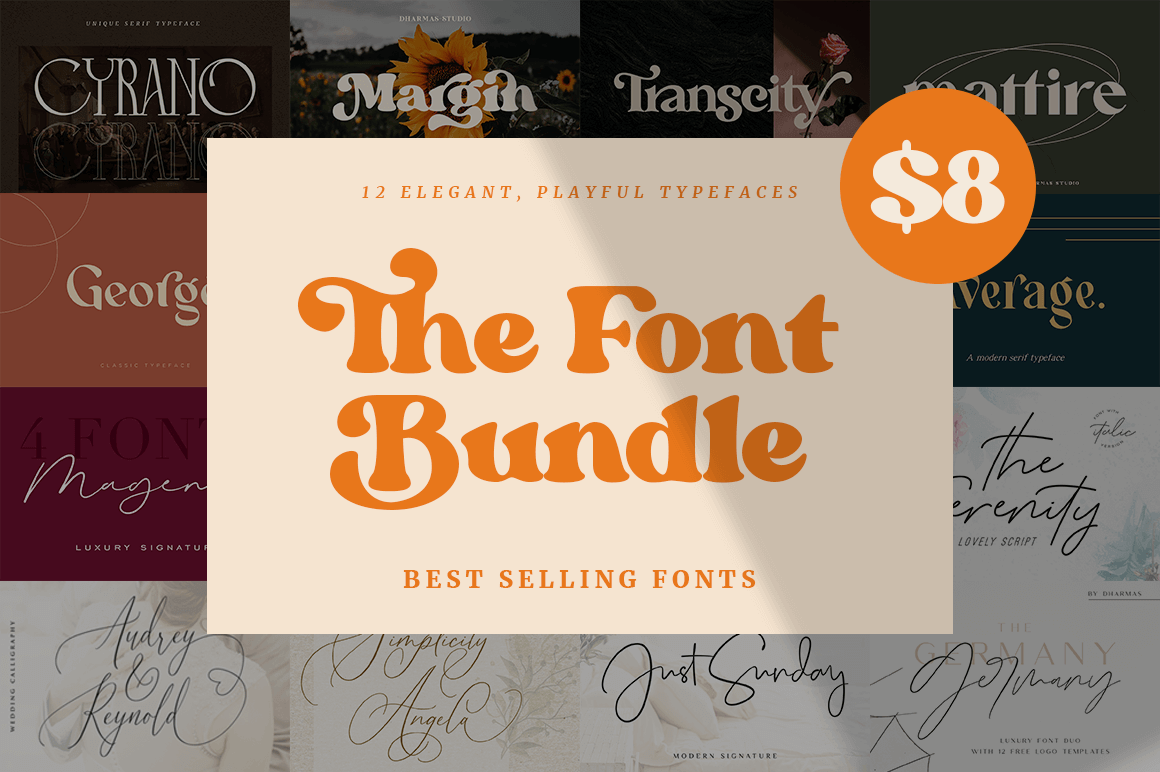
This gorgeous bundle features 12 typefaces that are just perfect for any project with class from magazine headers to T-shirts and product packaging. Toss in multi-lingual support and a variety of OpenType features and you've got yourself quite the flexible font collection.
Highlights:
- 12 elegant and versatile typefaces.
- OpenType features include - ligatures, stylistic alternates, swashes, contextual alternates and more.
- Great choice for branding, headers, logos, posters, magazines, T-shirts and more.